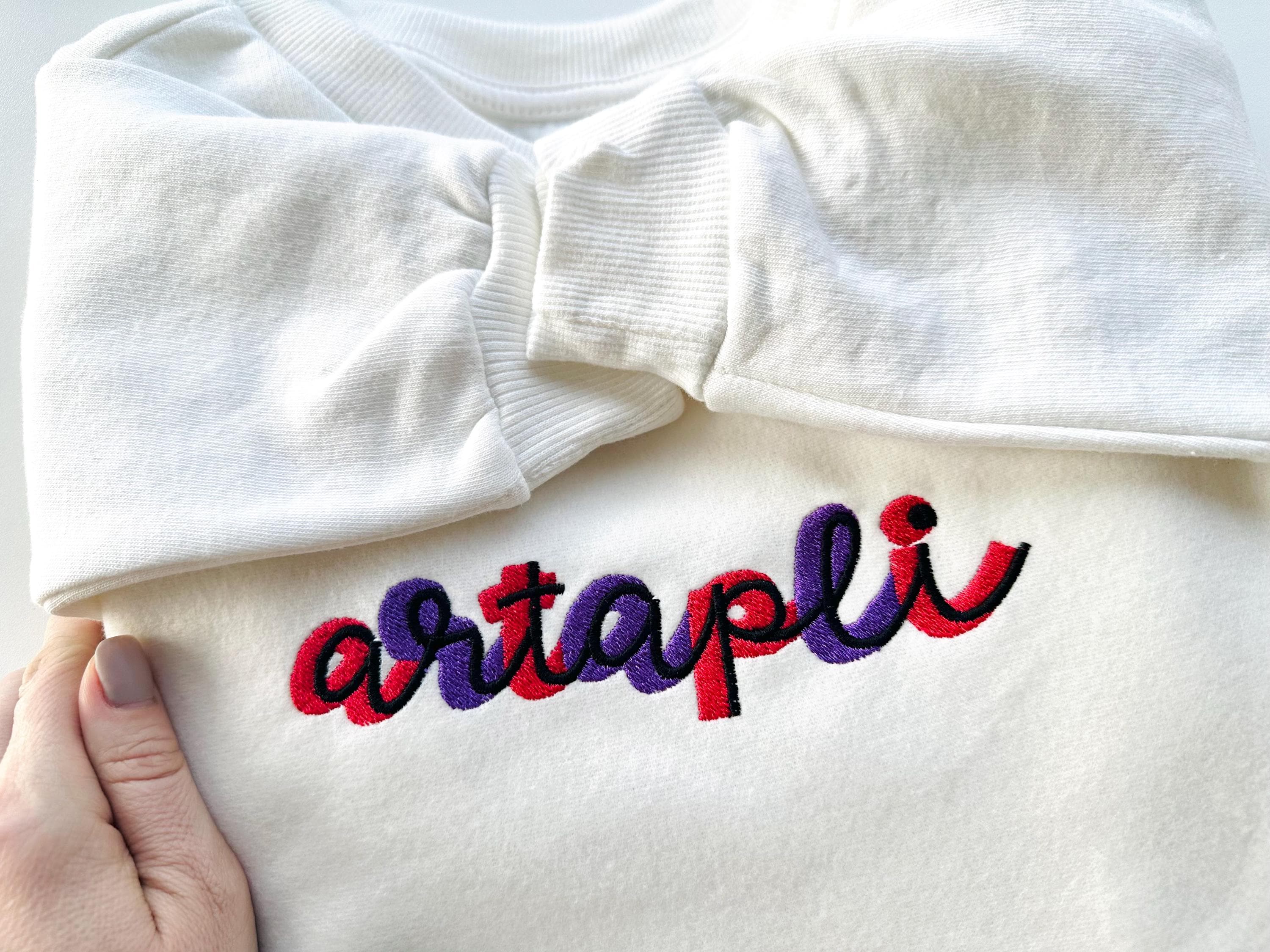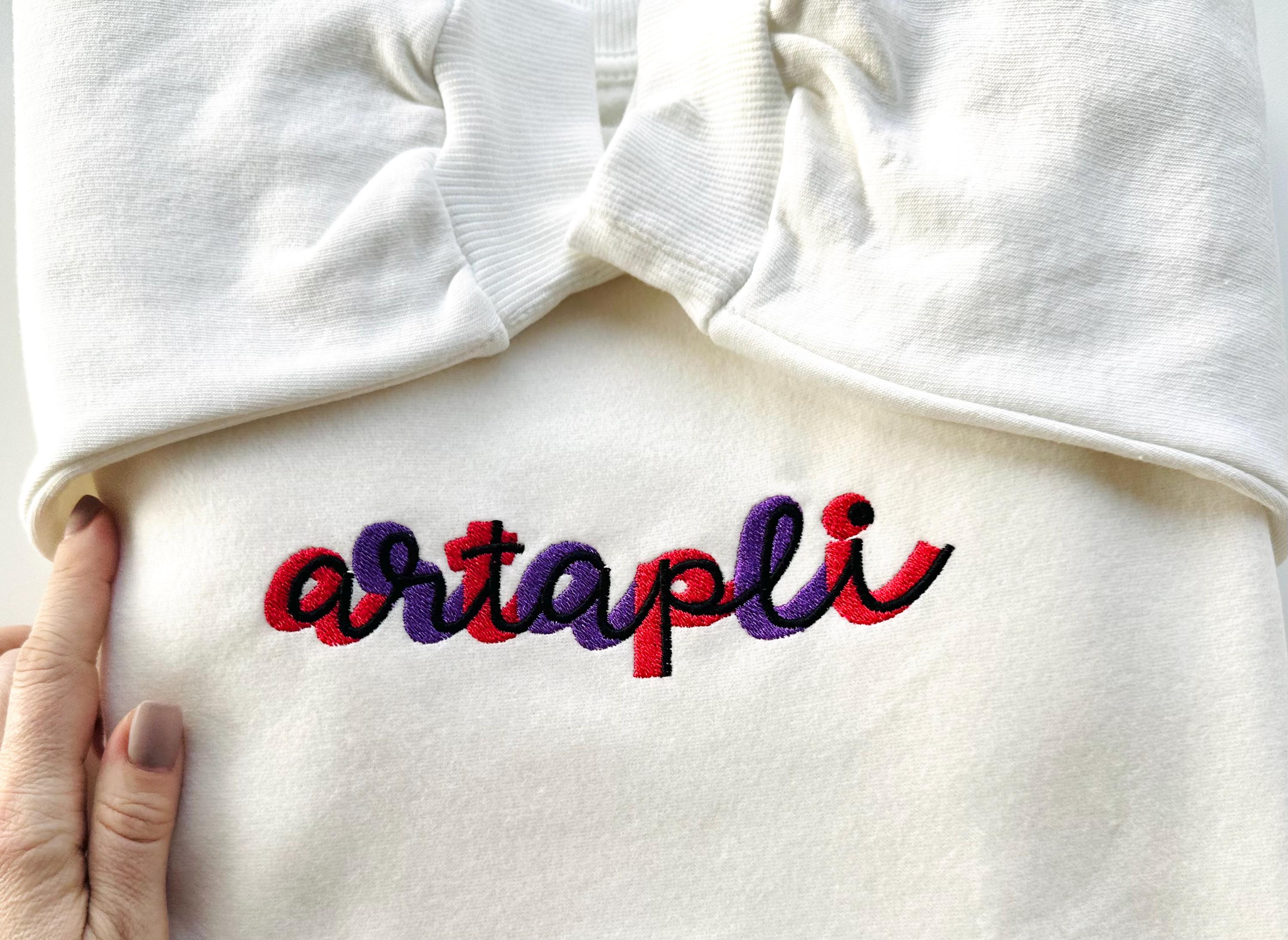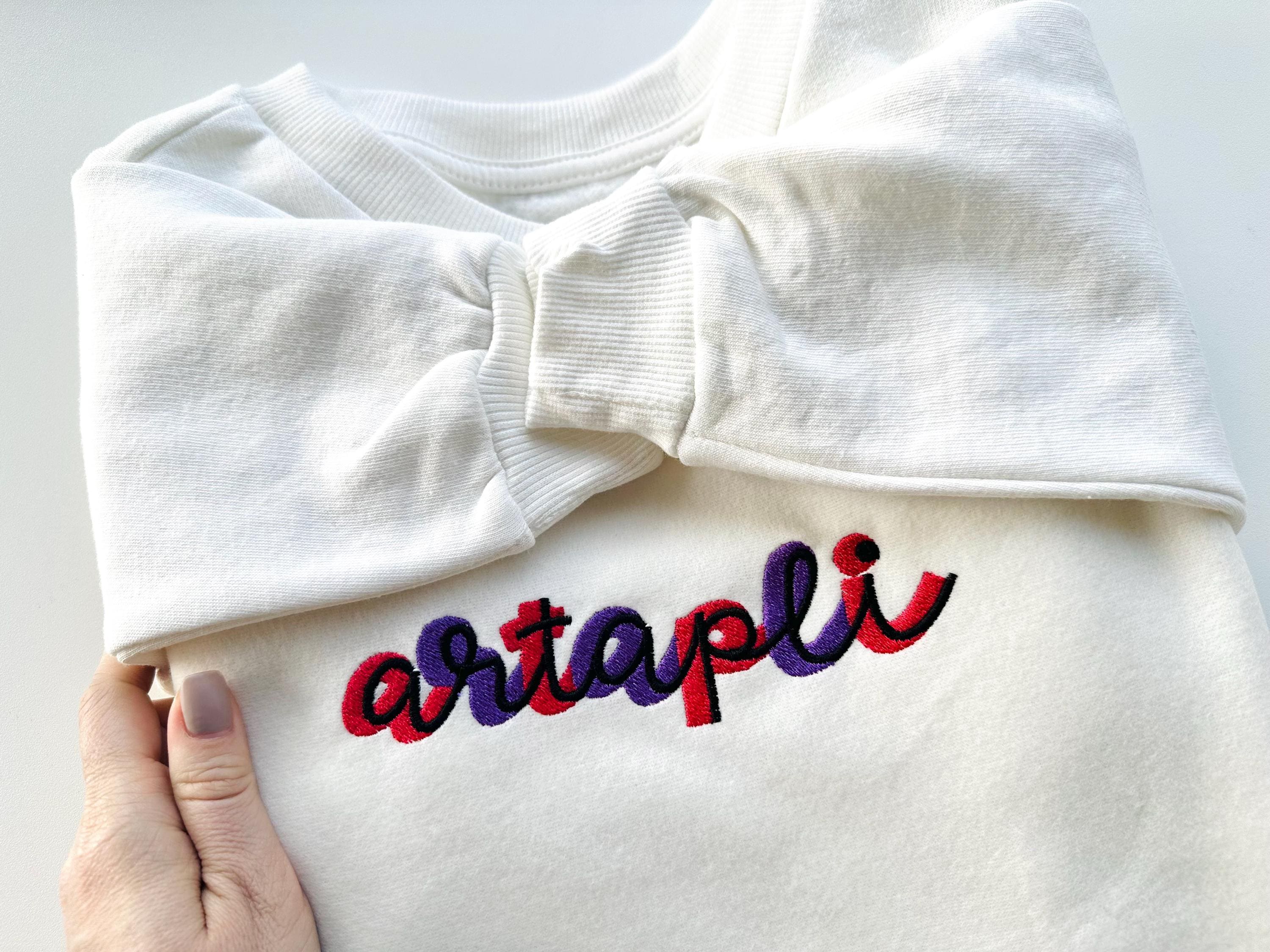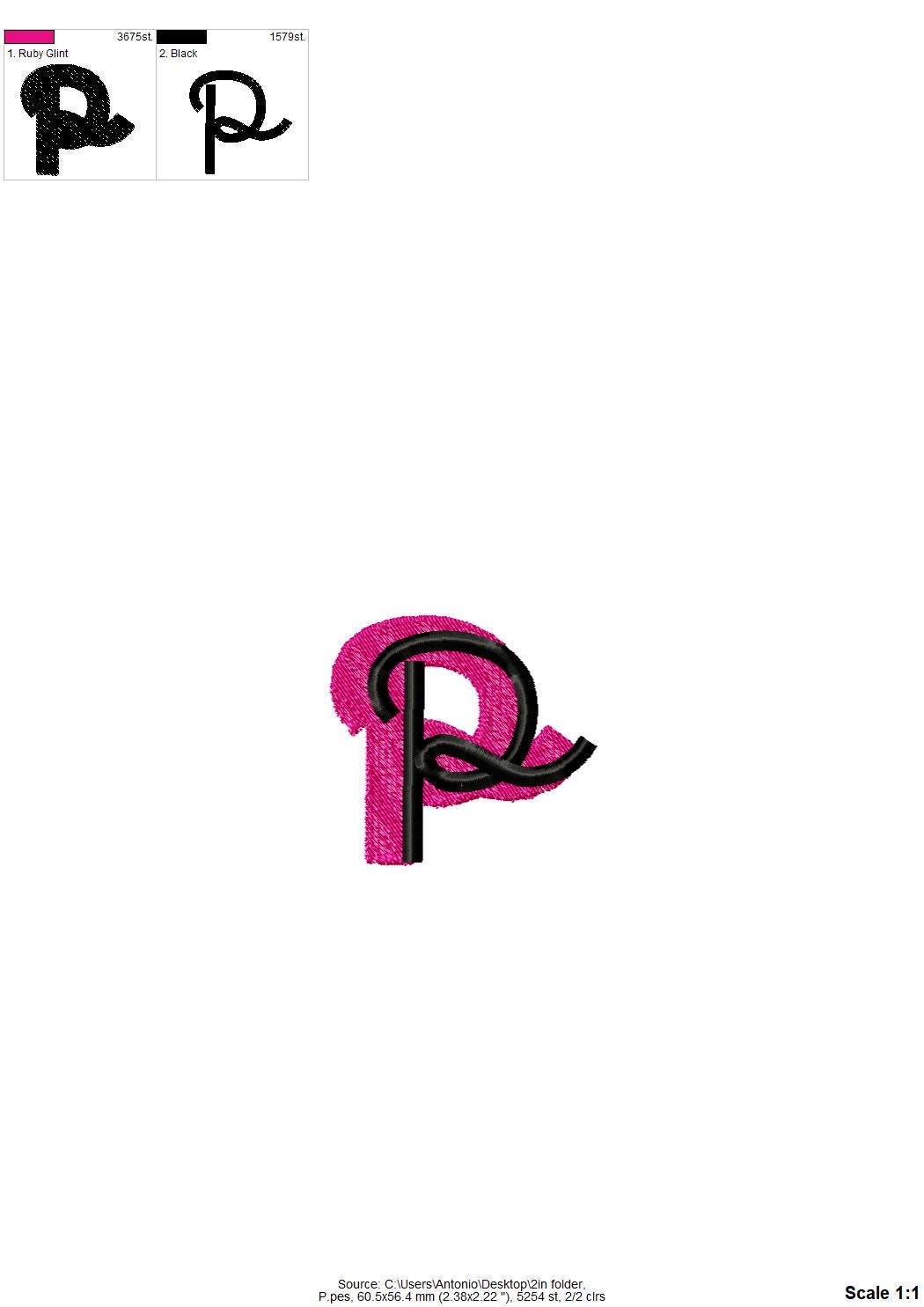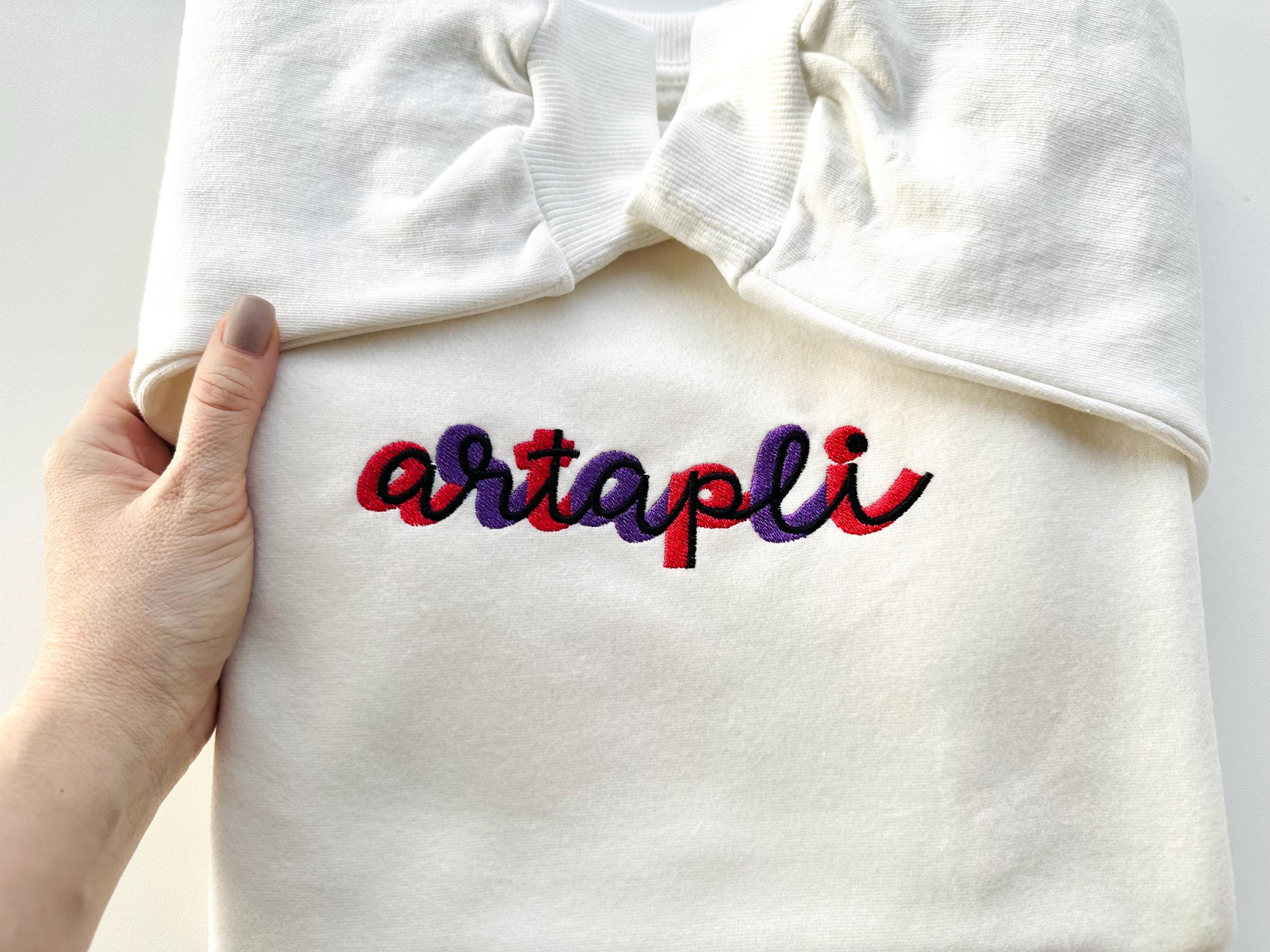
Handwritten script Shadow wide Font fill stitch double 2 color alphabet letters monogram machine embroidery designs mini sizes 1 up to 2.4 in
Whole alphabet A-Z uppercase and lowercase letters, numbers 0-9, and punctuation.